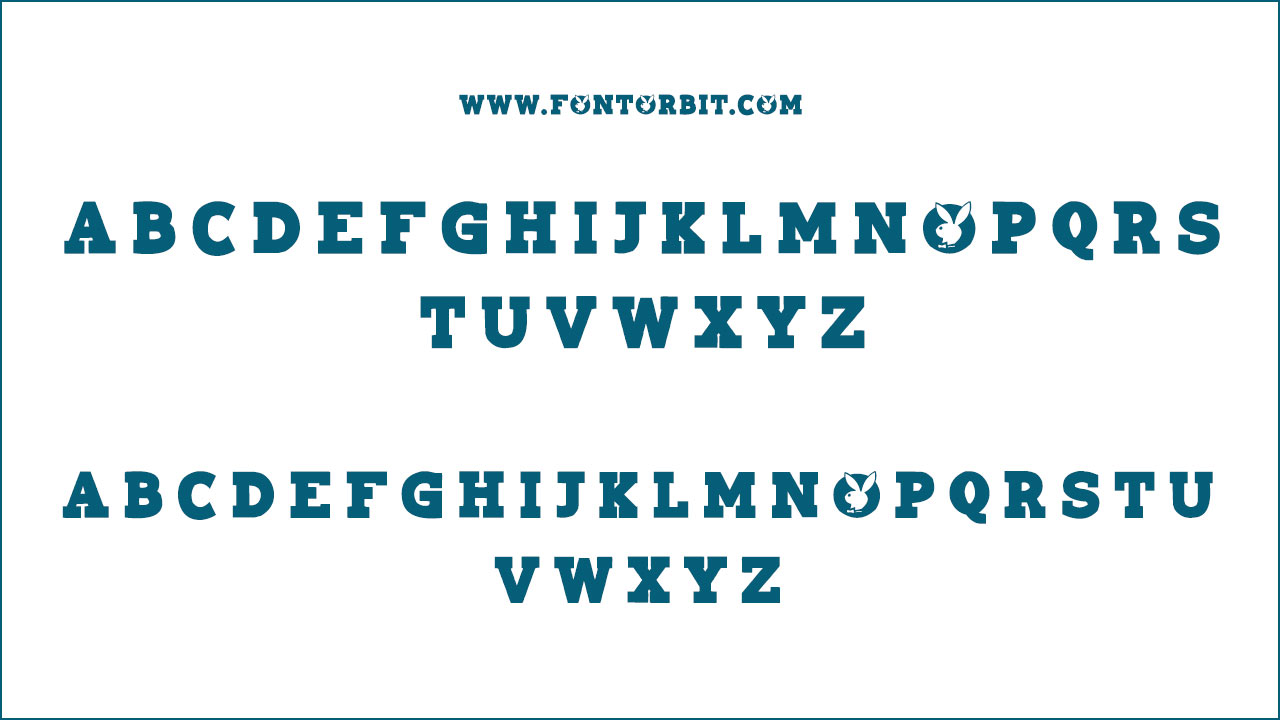
Playboy Font is a custom-designed typeface originally created for the Playboy magazine logo in the 1950s. Known for its elegance and distinctive style, Sharkshock Fonts has recreated it as the Playtoy font.
The Playboy Font’s design is characterized by its sophistication and luxury, mirroring the prestigious style of the Playboy brand. The Playtoy font by Sharkshock Fonts is a recreation of the Playboy Font. The recreated Playtoy font includes:
- Playtoy Regular
Playboy Font’s elegant and refined style makes it ideal for projects requiring class and sophistication. It is perfect for:
Playboy Font frequently appears in high-end branding and editorial contexts, where its luxurious design adds a refined touch. The Playtoy font is a popular choice for designs aiming to evoke prestige and elegance.
Since its inception in the 1950s, Playboy Font has been a symbol of sophistication and luxury. The recreated Playtoy font offers a contemporary touch to this classic design, making it a versatile choice for upscale and refined projects. Its distinctive style inspires and enhances branding, editorial work, and other high-end design applications.
1.What Font Does Playboy Use?
The Playboy magazine logo uses a custom-designed typeface, which has been recreated as Playtoy font by Sharkshock Fonts.
2.What Fonts Are Similar To Parisian Playboy JNL?
Similar fonts include Parisian, ITC Benguiat, and Bodoni, which share a sophisticated, serif style.
3.How Was The Playboy Logo Able To Achieve This Feat?
The Playboy logo achieved its iconic status through its elegant custom design and effective branding, creating a lasting impression with its distinctive Playboy Bunny symbol and sophisticated typeface.
4.What Makes Playboy Font Different From Other Elegant Fonts?
Playboy Font is distinguished by its custom design, which captures the essence of the Playboy brand. Its unique style combines classic elegance with a distinctive appearance, setting it apart from other typefaces.
5.What Are The Popular Uses Of Playboy Font?
Playboy Font is commonly used in luxury branding, editorial layouts, sophisticated marketing materials, and any design requiring a touch of class and refinement.